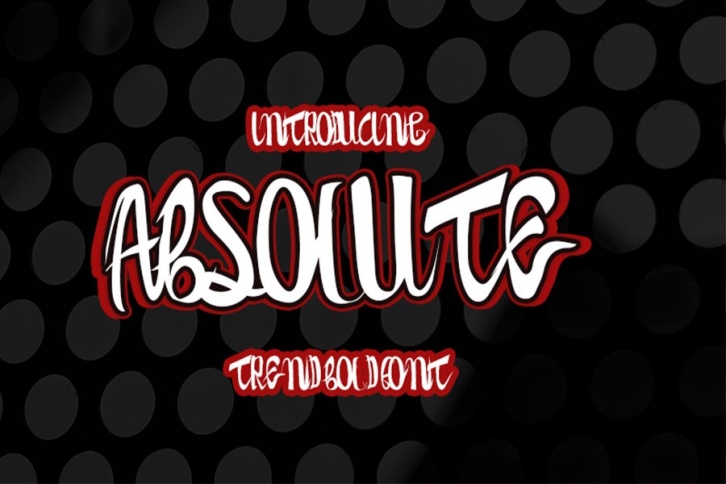
Absolute is a gorgeous font that was realeased on July 26, 2020. The font can be used in many style contexts and design environments. Perfect for invitations, magazines, websites, logos, and more! It was designed by InermediaSTUDIO and the file size is 16.49 MB. Thanks for checking out this font!